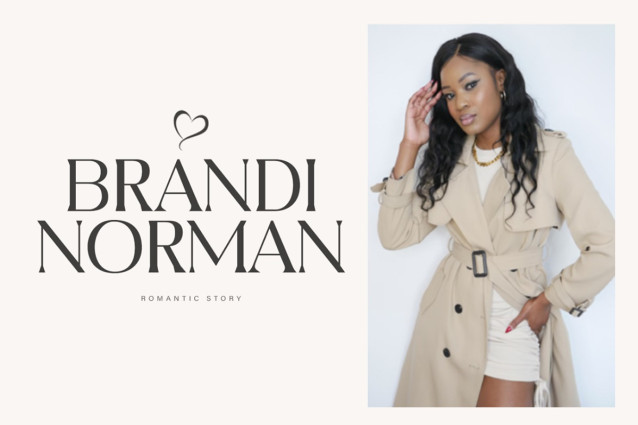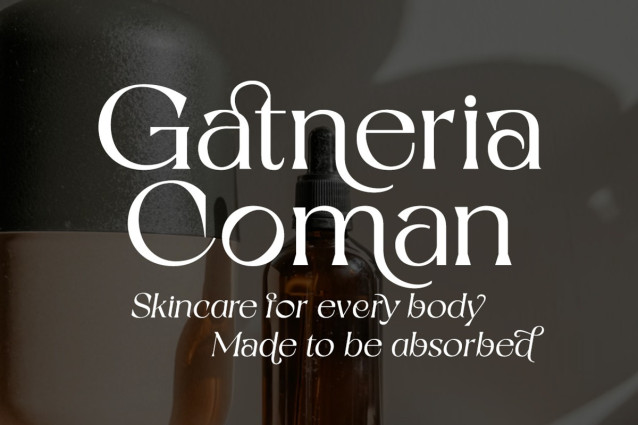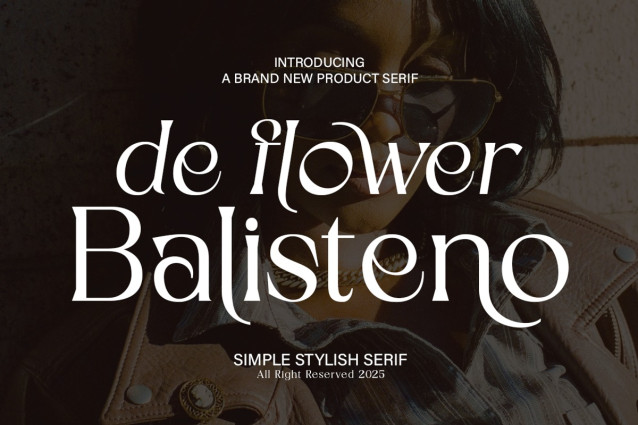
Flower Balisteno Font
Flower Balisteno Font is a serif display font with two alternate styles. A versatile blend of design needs, Flower Balisteno offers both upright and italic typefaces for a strong front-end look at a balanced size and easy readability in open-ended text.
Complementing its flexibility, this typeface offers alternate glyphs accessible through a series of open-ended letter styles, further expanding its expressive potential for any design project.